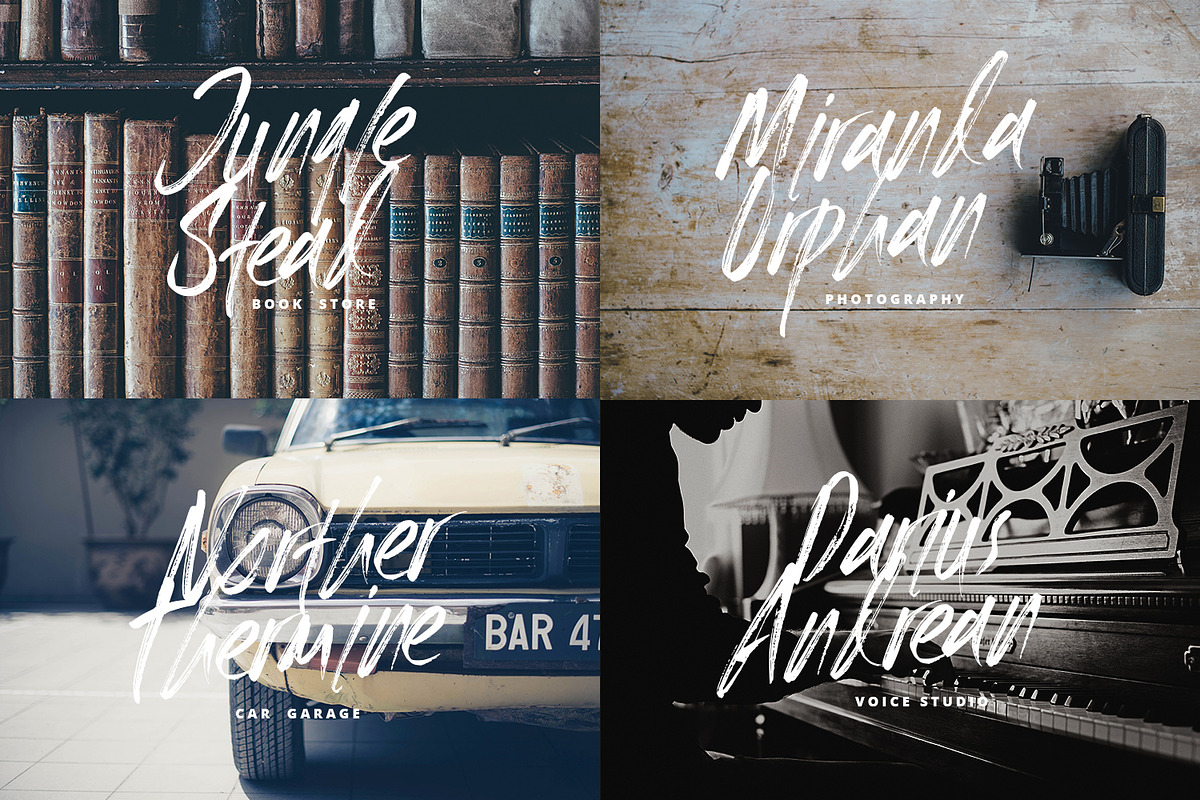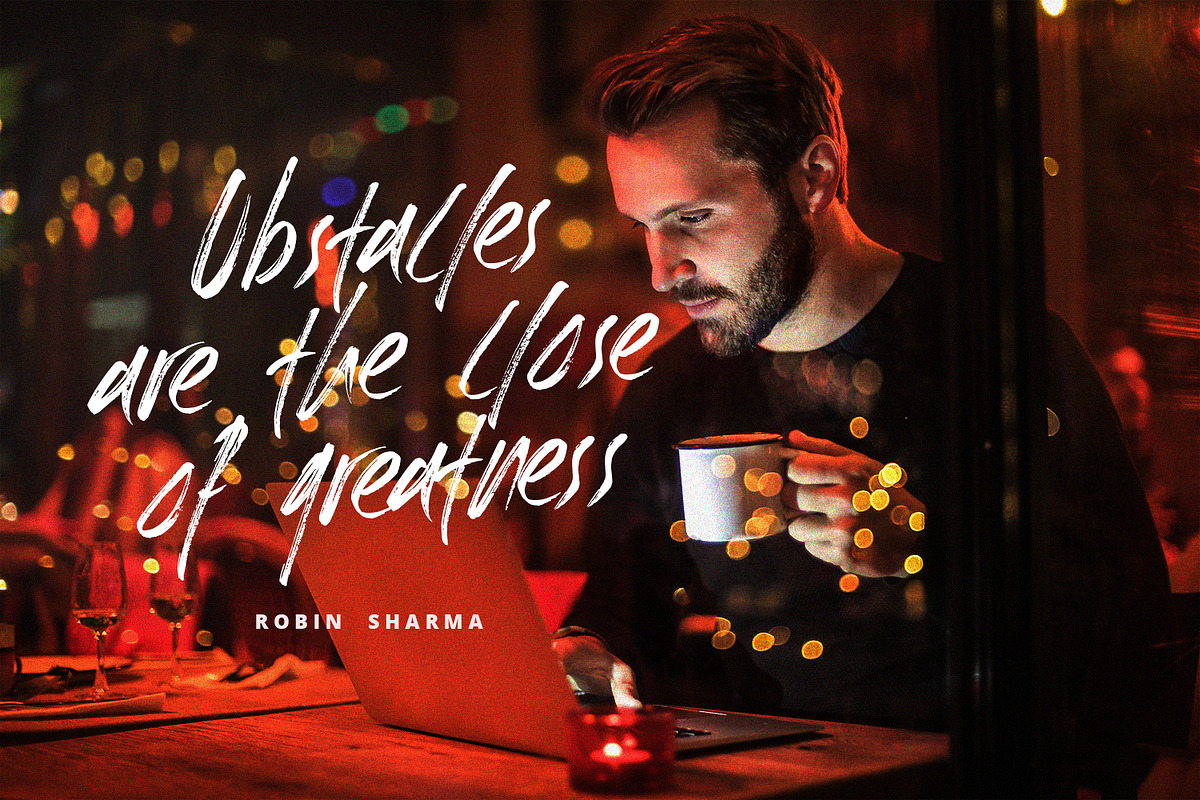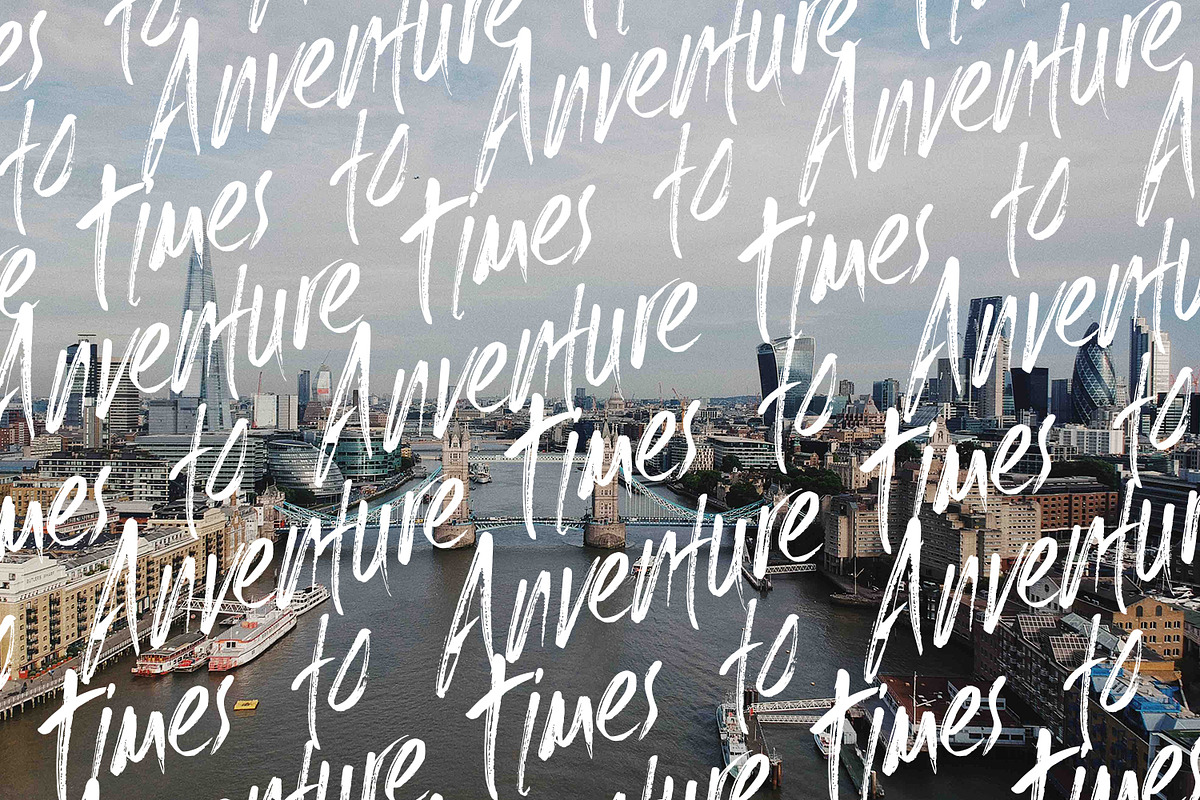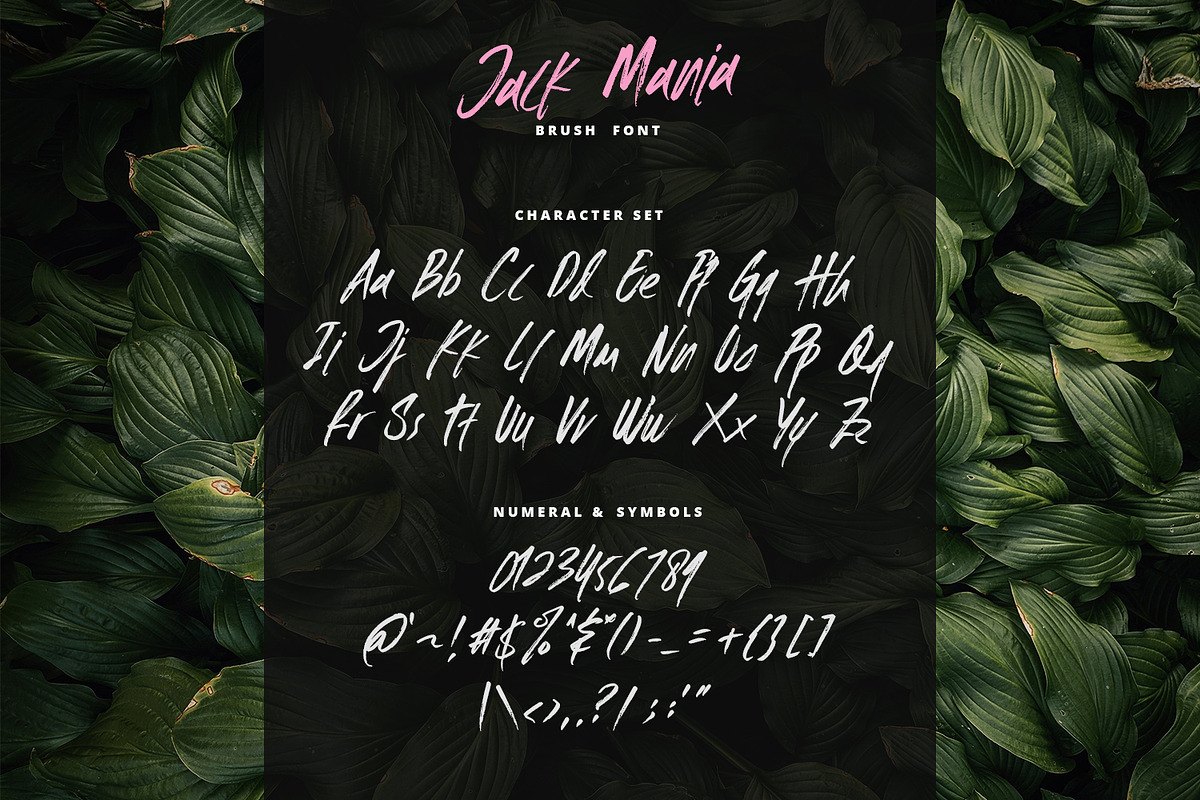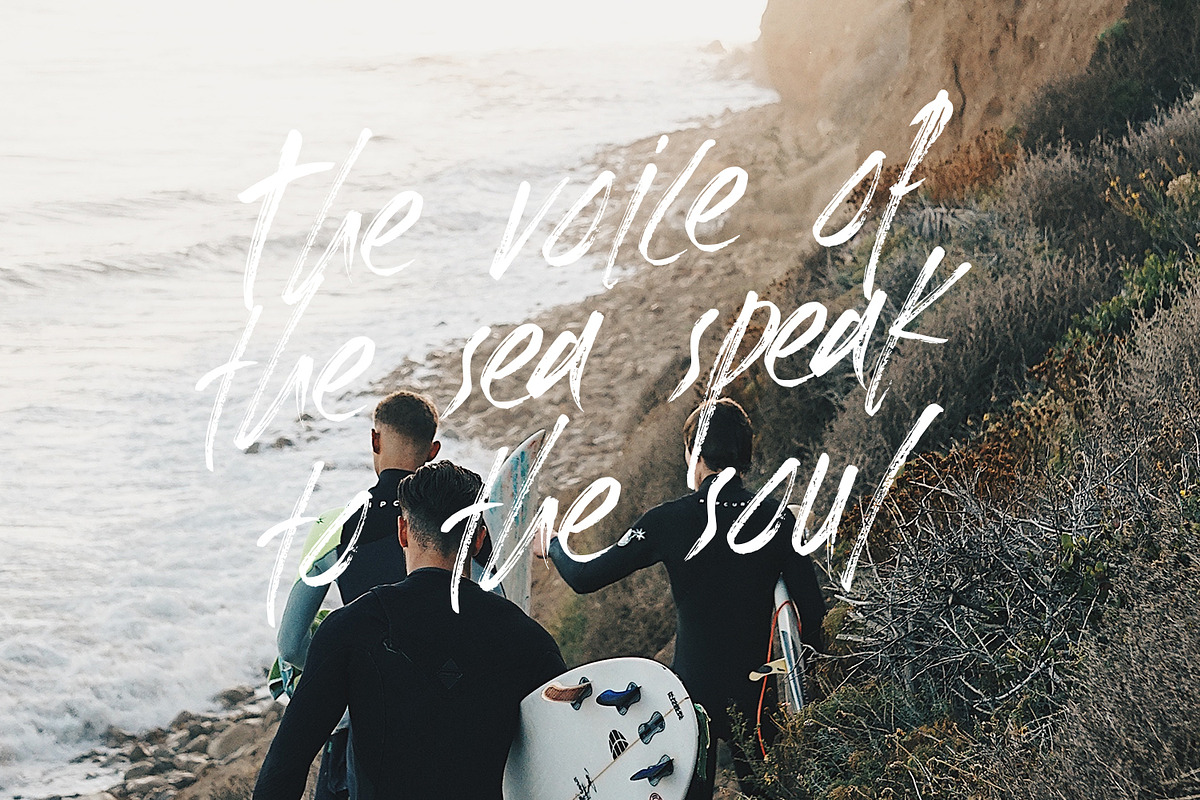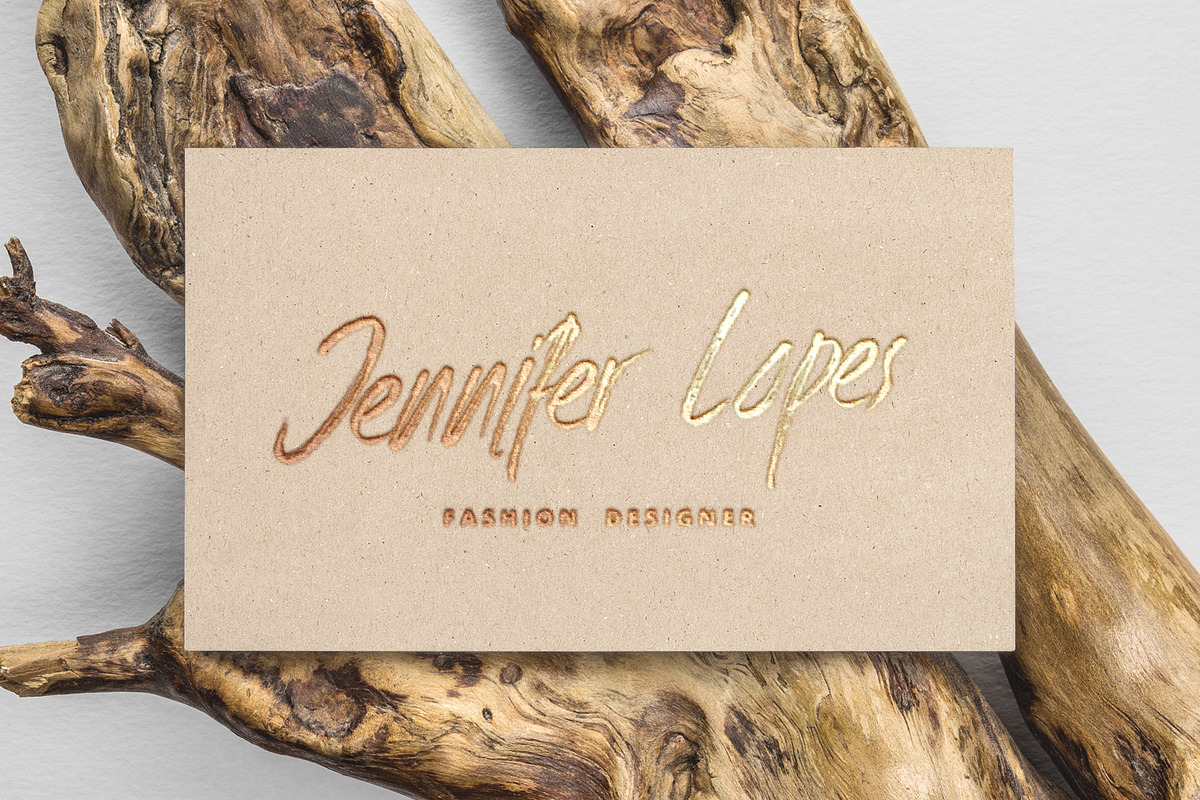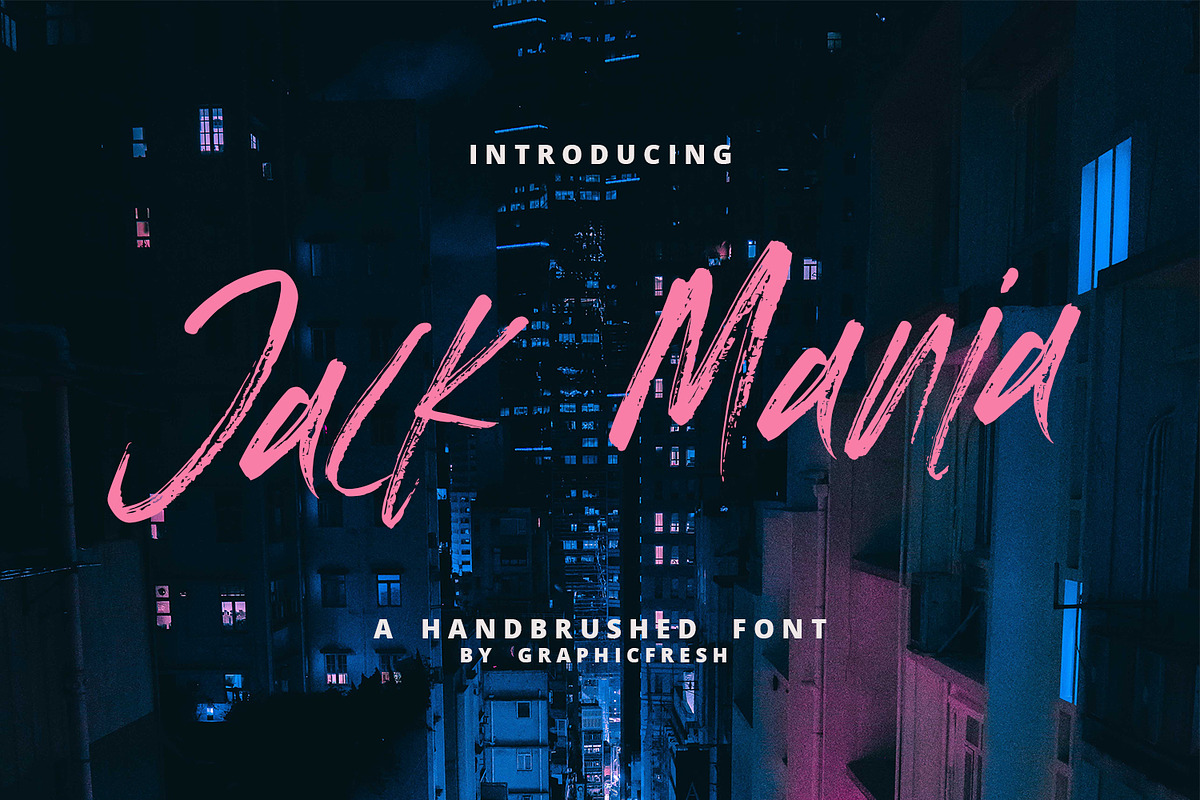
The JACK MANIA Brush Font
Hi everyone, this time we made a font of brush pen on paper. We love to make it, because this is a work of art itself. Making it through a long process. Every letter we make has always maintained its distinctive style. We hope you are all happy with our latest font.
Why The JACK MANIA Brush Font is worth a look
The JACK MANIA Brush Font by Graphicfresh fits naturally into Branding, posters, packaging, typography.